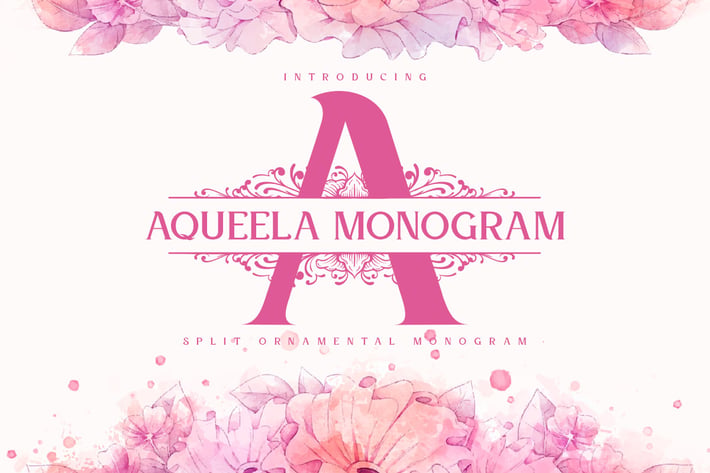
Aqueela Split Monogram Font
Aqueela is an outstanding monogram display font. Masterfully designed to become a true favorite, this font has the potential to bring each of your creative ideas to the highest level!